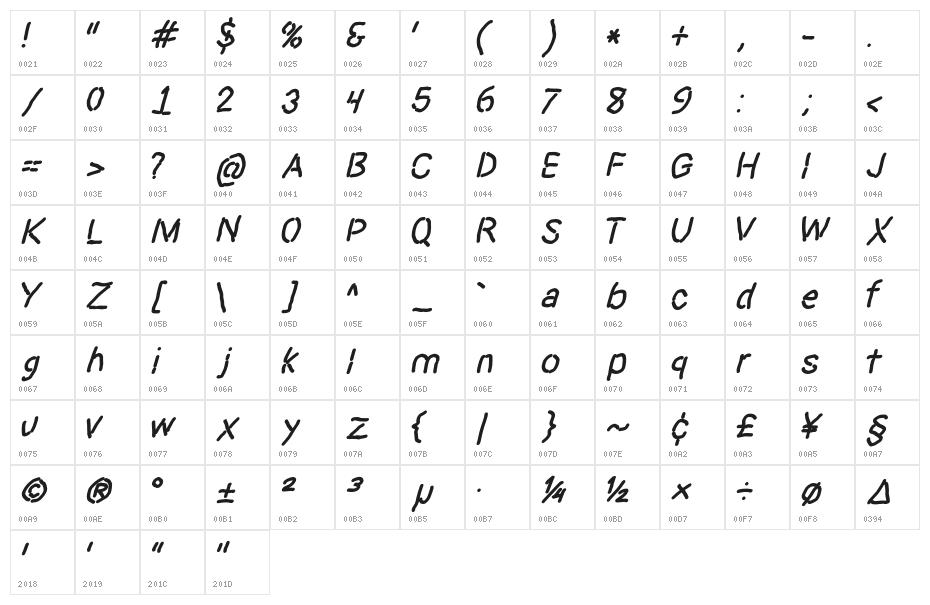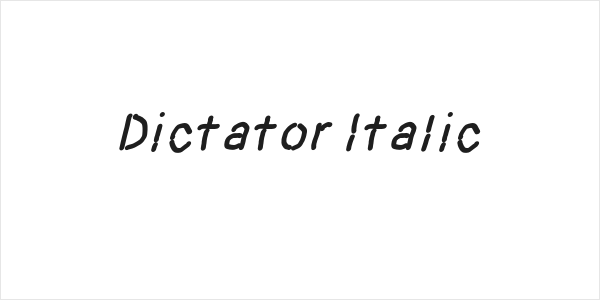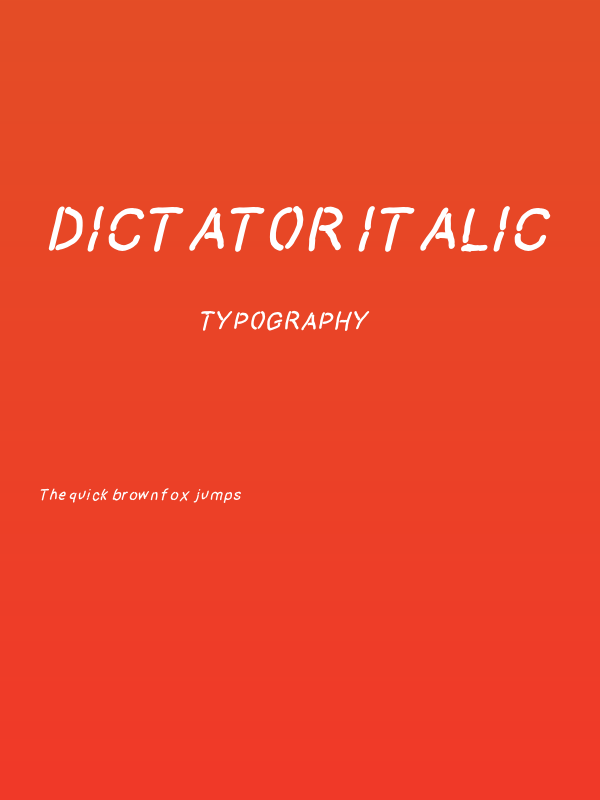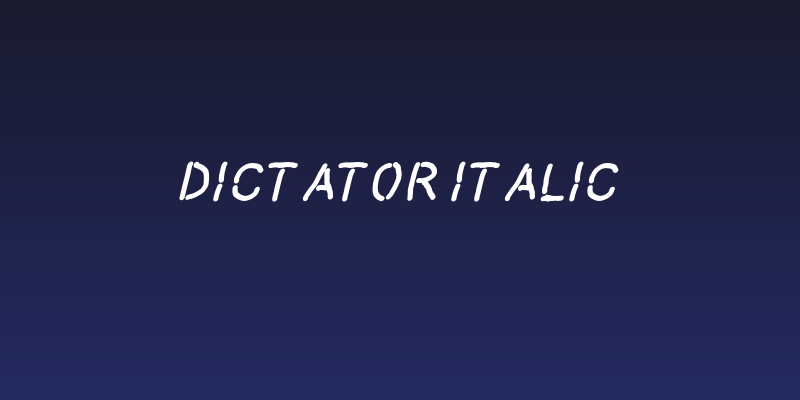
Dictator Italic Font
Dictator Italic Description
This font features a handwritten style with a slight slant, giving it an italic appearance. The characters are crafted with a casual, organic flow, reminiscent of quick, informal handwriting. Each letter maintains a consistent stroke width, contributing to a uniform look across the alphabet. The uppercase and lowercase letters are distinct yet harmonious, with rounded edges and a playful, approachable demeanor. Numbers and special characters follow the same style, ensuring a cohesive appearance throughout. The font's informal and relaxed nature makes it suitable for projects that require a personal touch.
| Overall Style | Casual, Handwritten |
| Use Case | Informal text, Creative projects, Personal notes |
| Proposed Projects | Ideal for personal notes, informal invitations, greeting cards, and creative projects that require a handwritten touch. |